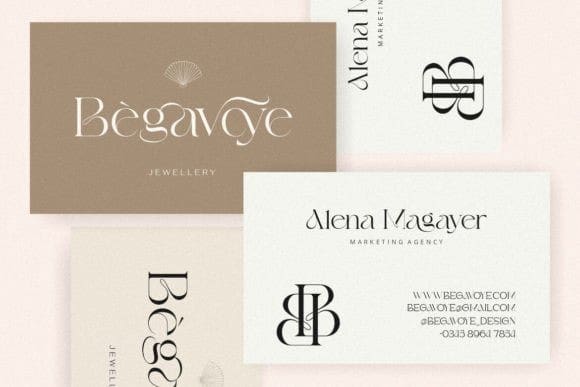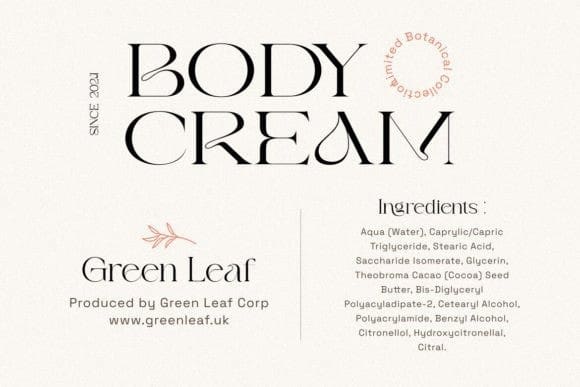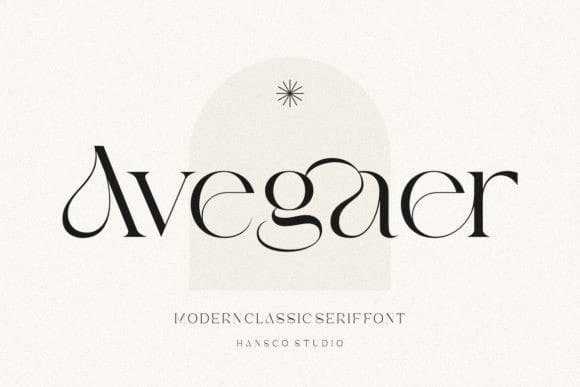
Avegaer Font
Avegaer Font, a stylish serif font, captivates with its unique design, blending modern aesthetics with timeless sophistication. The distinctive serifs and graceful letterforms exude a sense of refinement, making it an ideal choice for projects that demand a touch of sophistication and contemporary elegance.